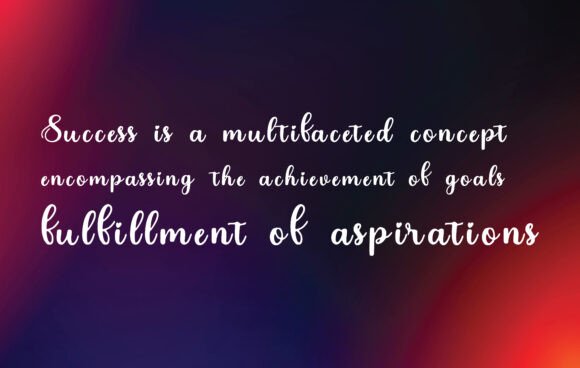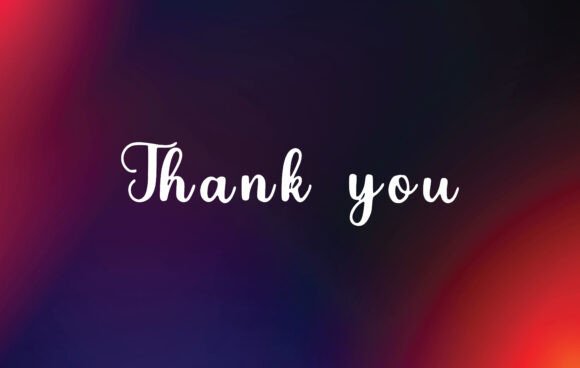
Camilo Font: Elevate Your Creative Projects with this Lovely Handwritten Font
Are you a designer, craftsperson, or creative enthusiast looking for a font that can take your projects to the next level? Look no further than Camilo Font, a beautiful and charming handwritten font that is sure to capture your audience’s attention. In this article, we’ll explore the features and benefits of Camilo Font, and why it’s the perfect choice for creating stunning logos, branding, and quotes.
What is Camilo Font?
Camilo Font is a unique and elegant handwritten font that is designed to add a touch of personality to your creative projects. With its flowing lines and delicate curves, Camilo Font exudes a sense of warmth and sophistication, making it perfect for a wide range of applications, from logos and branding to quotes and social media graphics.
Key Features of Camilo Font
- Handwritten style: Camilo Font boasts a beautiful, handwritten style that adds a personal touch to your projects.
- Unique character set: The font features a unique character set, including uppercase and lowercase letters, numbers, and special characters.
- Elegant and sophisticated: Camilo Font’s elegant and sophisticated design makes it perfect for high-end branding and design projects.
- Easy to read: Despite its ornate style, Camilo Font is easy to read, making it suitable for body text and captions.
Why Choose Camilo Font?
So, why should you choose Camilo Font for your creative projects? Here are just a few reasons:
- Stand out from the crowd: With Camilo Font, you can create unique and eye-catching designs that will help you stand out from the competition.
- Perfect for branding: The font’s elegant and sophisticated design makes it perfect for branding and logo creation.
- Versatile: Camilo Font can be used for a wide range of projects, from digital graphics to print materials.
- High-quality: The font is designed to high-quality standards, ensuring that your projects look professional and polished.
- Experiment with different sizes and colors: Try out different sizes and colors to see what works best for your project.
- Pair with other fonts: Camilo Font pairs well with other fonts, so feel free to experiment with different combinations.
- Use for headlines and titles: The font’s elegant design makes it perfect for headlines and titles.
Camilo Font in Action
So, what can you create with Camilo Font? Here are a few examples of how this beautiful font can be used:
- Logos and branding: Create stunning logos and branding materials that will help your business stand out.
- Social media graphics: Use Camilo Font to create eye-catching social media graphics that will grab your audience’s attention.
- Quotes and posters: Create inspiring quotes and posters that will motivate and inspire your audience.
In conclusion, Camilo Font is a beautiful and versatile handwritten font that is perfect for designers, craftspersons, and creative enthusiasts. With its elegant design, unique character set, and ease of use, Camilo Font is sure to take your creative projects to the next level. Whether you’re looking to create stunning logos, branding materials, or social media graphics, Camilo Font is the perfect choice.